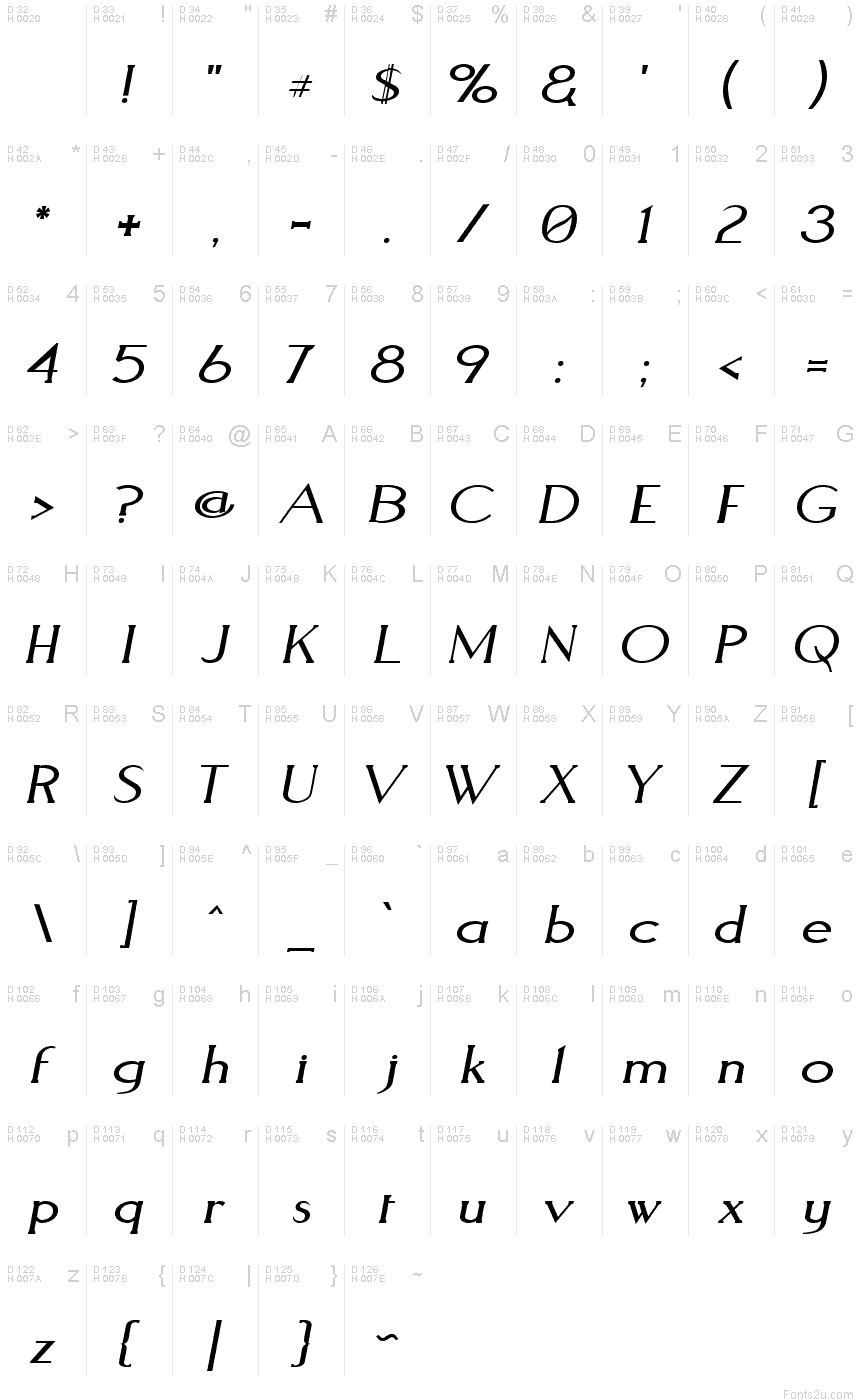
Aquaduct Italic
Aquaduct Italic font by Graham Meade is a free serif typeface with a distinctly liquid, forward-leaning motion. The letters sweep to the right with long, tapering strokes and fine, chiseled details that feel both classical and agile, like ink pulled quickly across smooth paper. Within the Aquaduct family, this italic cut adds drama and momentum, turning even a single word into a striking gesture.
Using Aquaduct Italic, your titles and short phrases gain a sense of elegant urgency that works beautifully for book covers, wine labels, boutique branding, posters, event invitations, and editorial headlines. This free font thrives at larger sizes where its flowing curves and sharp accents can really breathe. Try pairing Aquaduct Italic with a clean sans serif for body copy to keep the focus on its graceful, calligraphic flair.